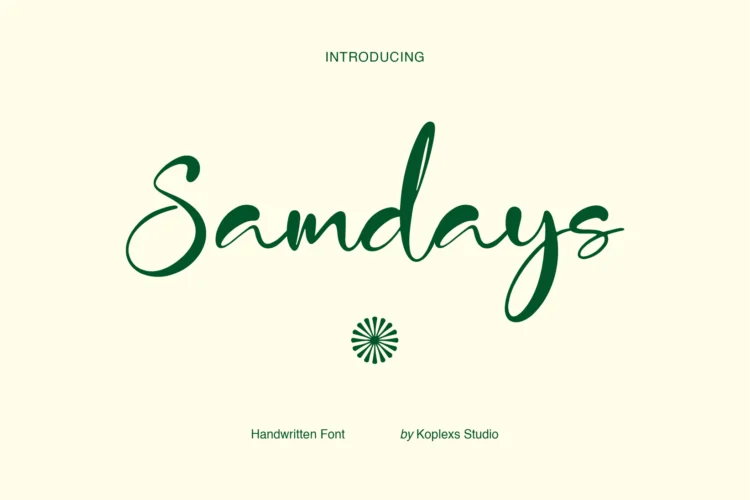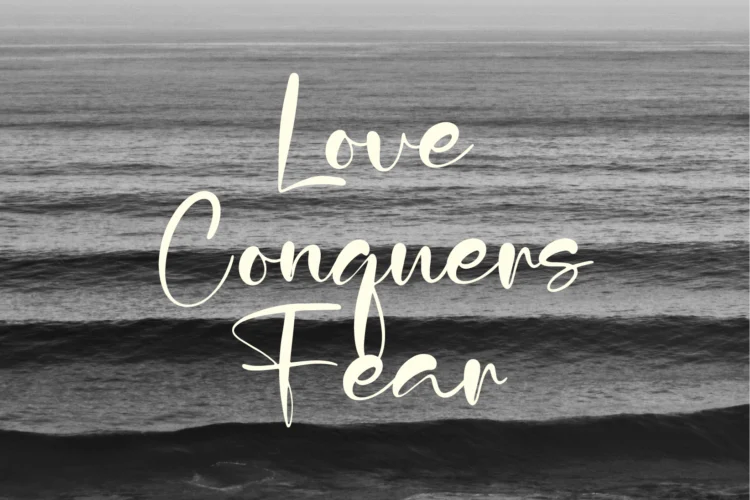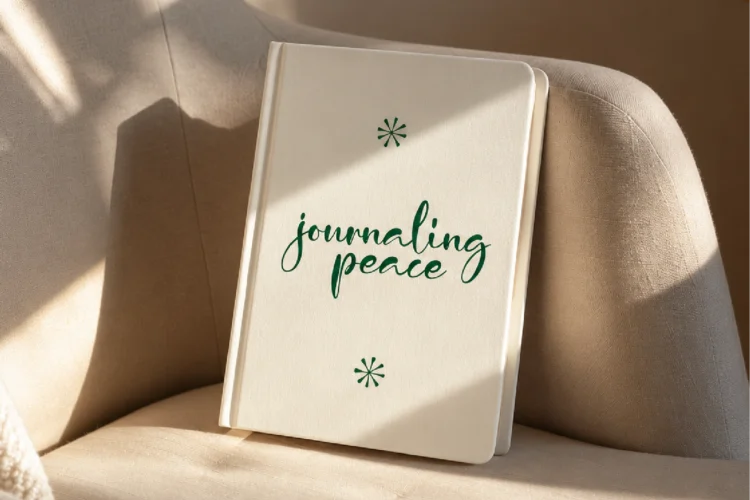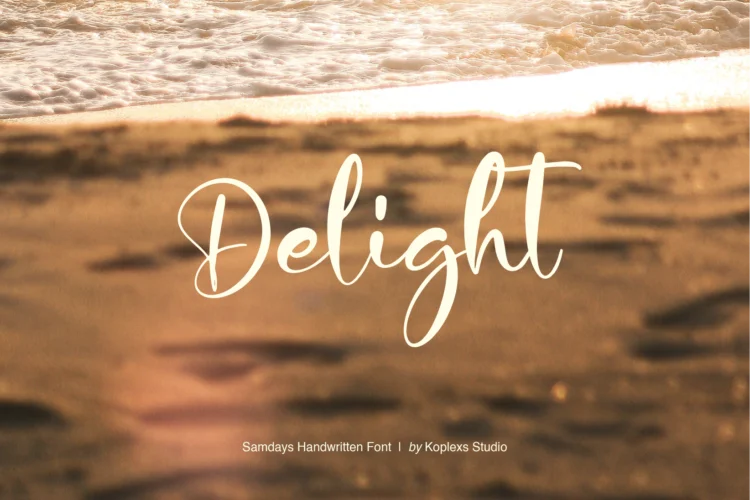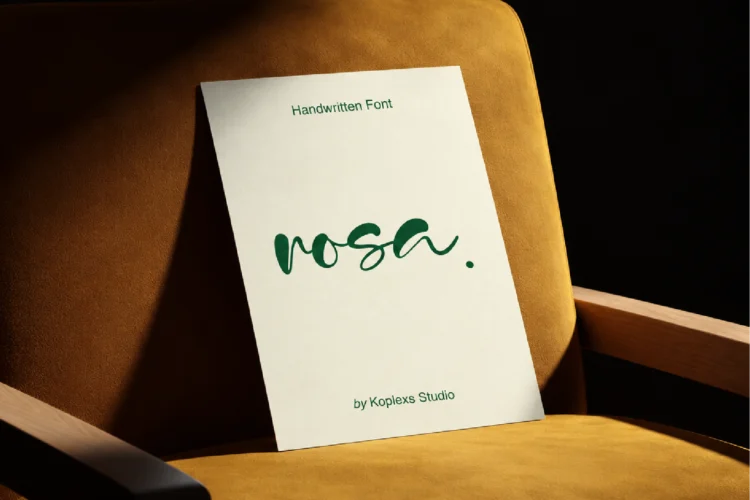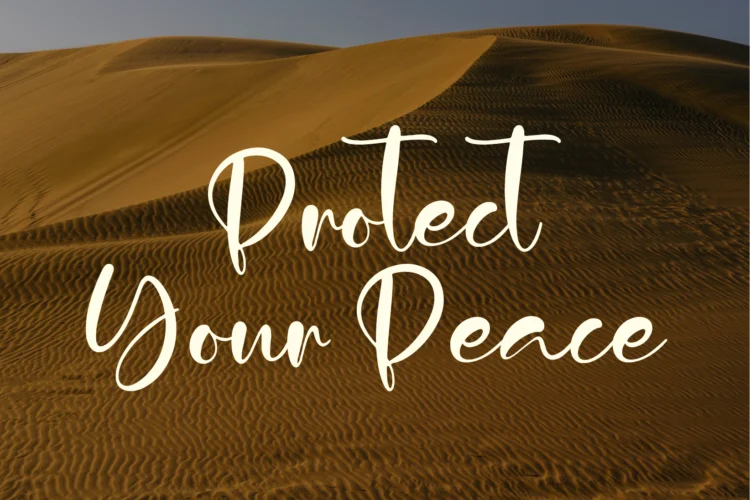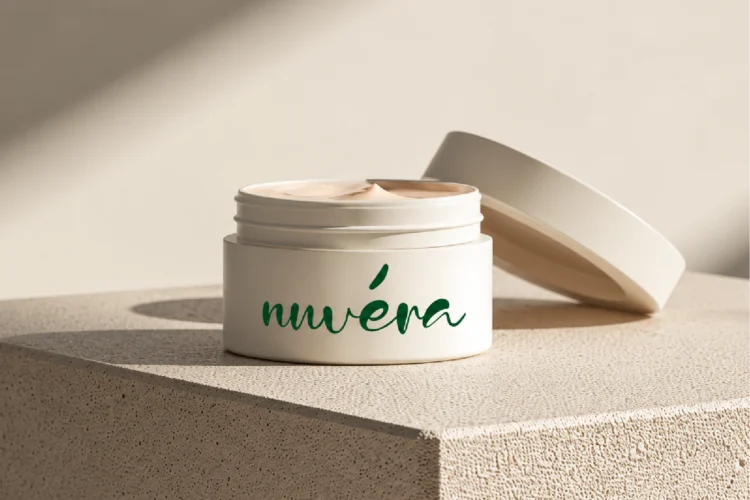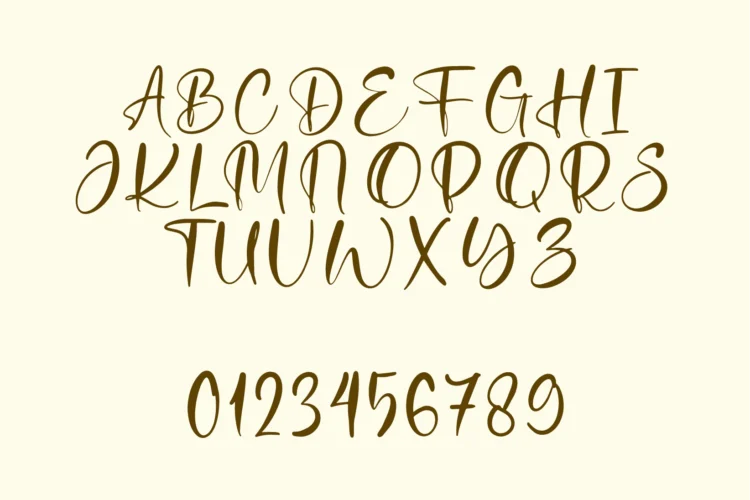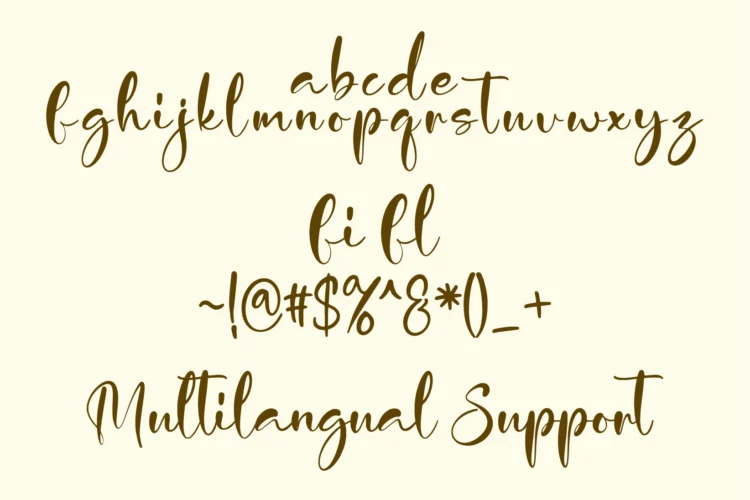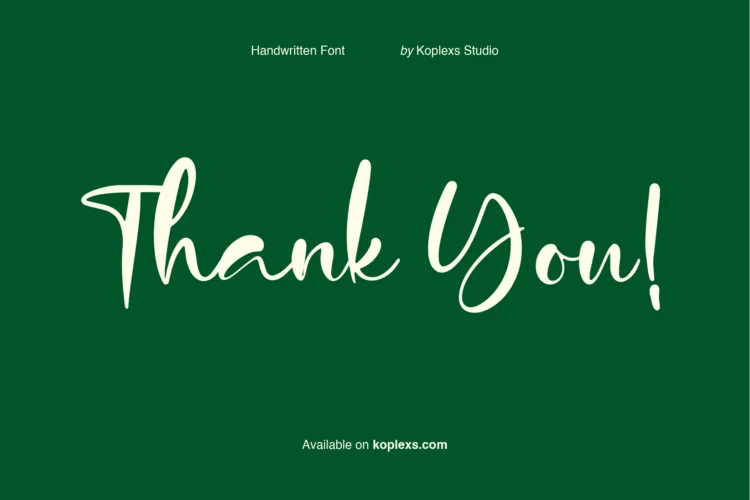
Samdays Font | Handwritten Script for Branding & Weddings
Samdays Font is a handwritten script font by Koplexs Studio that brings a warm, personal feel to your designs. Smooth connections, generous loops, and contrasting thick and thin strokes give its lettering a relaxed rhythm.
Its tall letterforms and sweeping capitals echo the expressive style of modern calligraphy fonts. Use a short brand name to show off the flowing lowercase, or let an oversized initial become the focal point of an invitation or cover.
Perfect For These Design Styles
- Beauty and skincare logos, product labels, and packaging.
- Wedding invitations, save-the-date cards, and place cards.
- Journal covers, planners, and personal stationery.
- Boutique branding, business cards, and thank-you notes.
- Social media quotes, photography overlays, and short poster headlines.
Samdays works especially well when a few words carry the design. Try it on a cream label, a simple journal cover, or a photograph with plenty of open space. Give the long loops room to breathe, and pair it with clean sans serif fonts for supporting text.